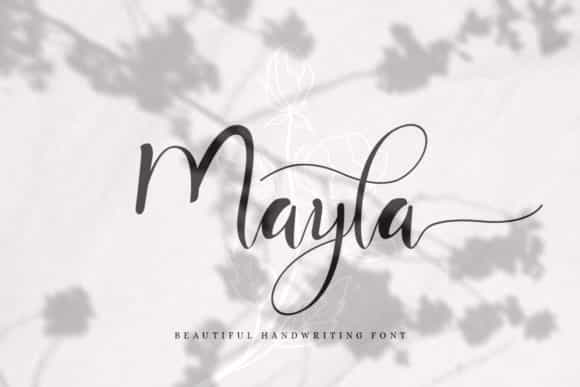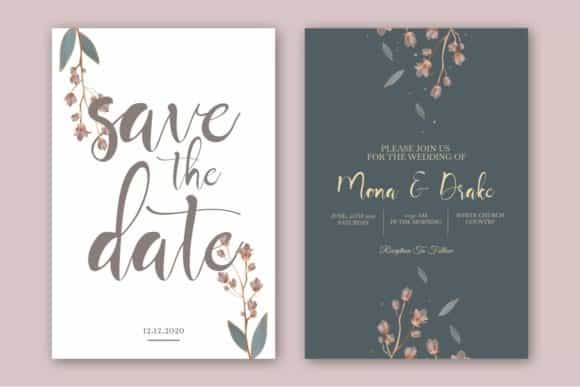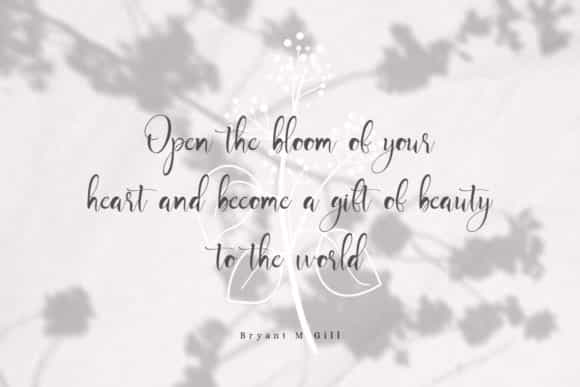
Discover Mayla Script Font, part of the Calligraphy Handwritten collection—a versatile and unique font perfect for adding a personal touch to your projects. Download it for free and enjoy crafting designs with style, from invitations to social media posts. This font is available exclusively for personal use, giving you the freedom to create without limits. Unlock your creativity with Mayla Script Font today!
Mayla is a modern romantic calligraphy typeface, all the characters can be easily put together by a craftsman or designer. It is a great font for logos, quotations, badges, labels packaging designs , blogs websites headlines banners posters prints t-shirts magazines promotional products templates etc.